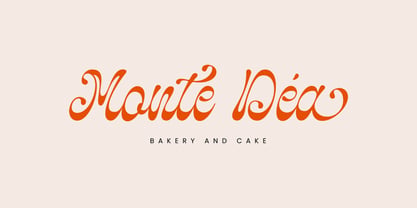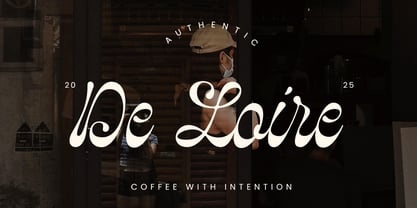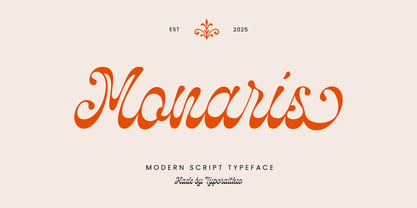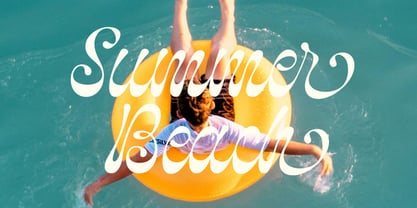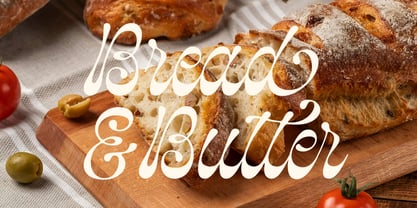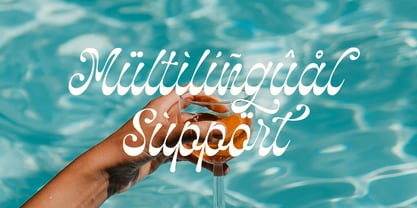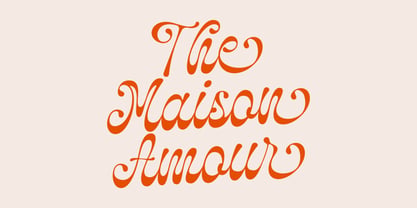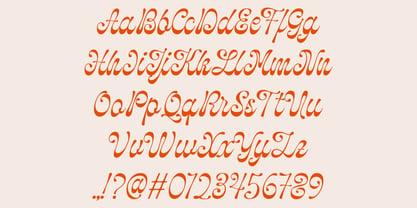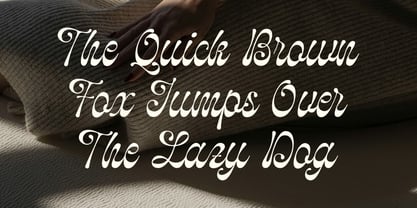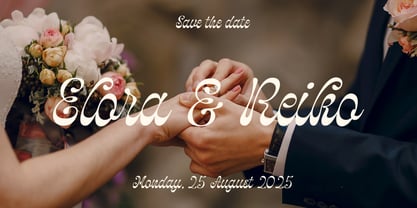
Monaris
The Monaris Font Family was designed by Rendy Riyananda and published by Typoraith Co. Monaris contains 1 styles. More about this family
Monaris is a modern script typeface that blends elegant curves with a fresh, contemporary look. Its smooth flow, refined swashes, and artistic letterforms bring a luxurious and expressive feel to any design project.
Crafted to elevate your visuals, Monaris is perfect for branding, editorial design, product packaging, wedding invitations, boutique logos, social media graphics, and more.
- Alternates & stylistic swashes
- Uppercase & lowercase letters
- Numbers & punctuation
- Multilingual support
Perfect For
- Logo & Branding
- Wedding Invitations
- Beauty & Fashion Branding
- Packaging Design
- Social Media Templates
- Product Labels
- Editorial Design
- Quote Typography
- Greeting Cards